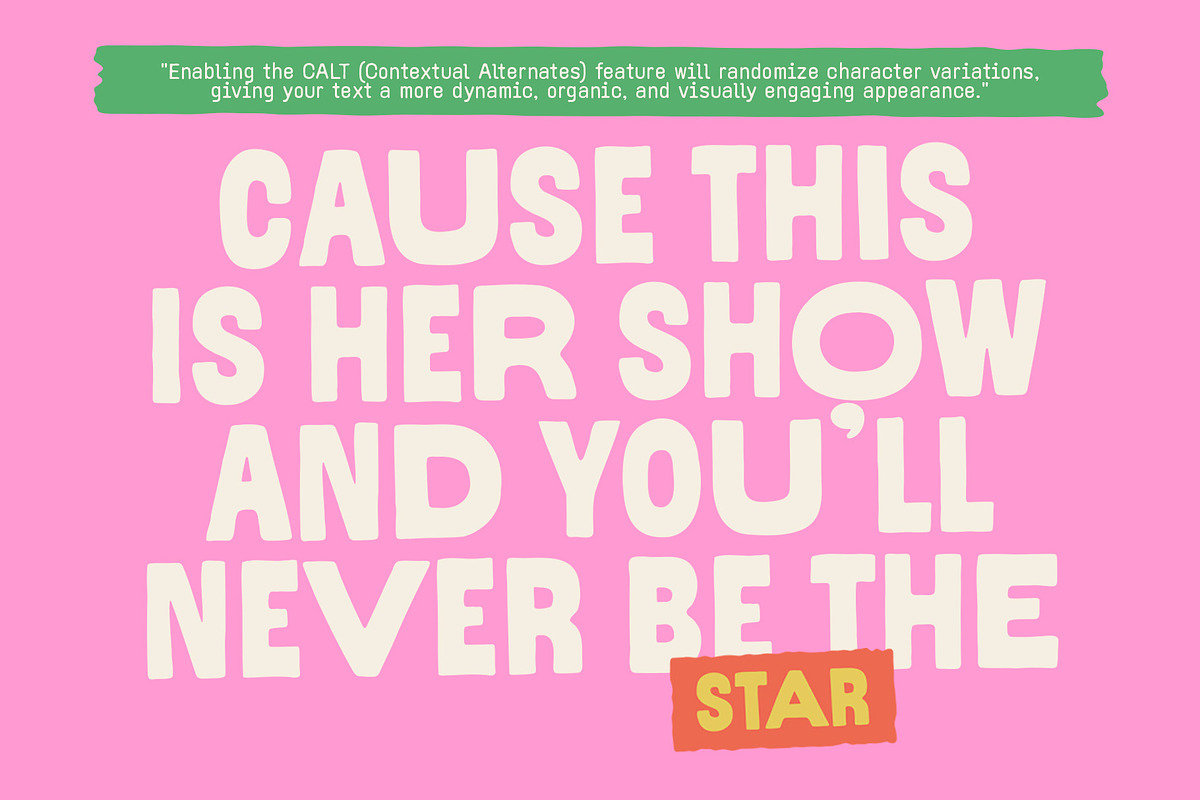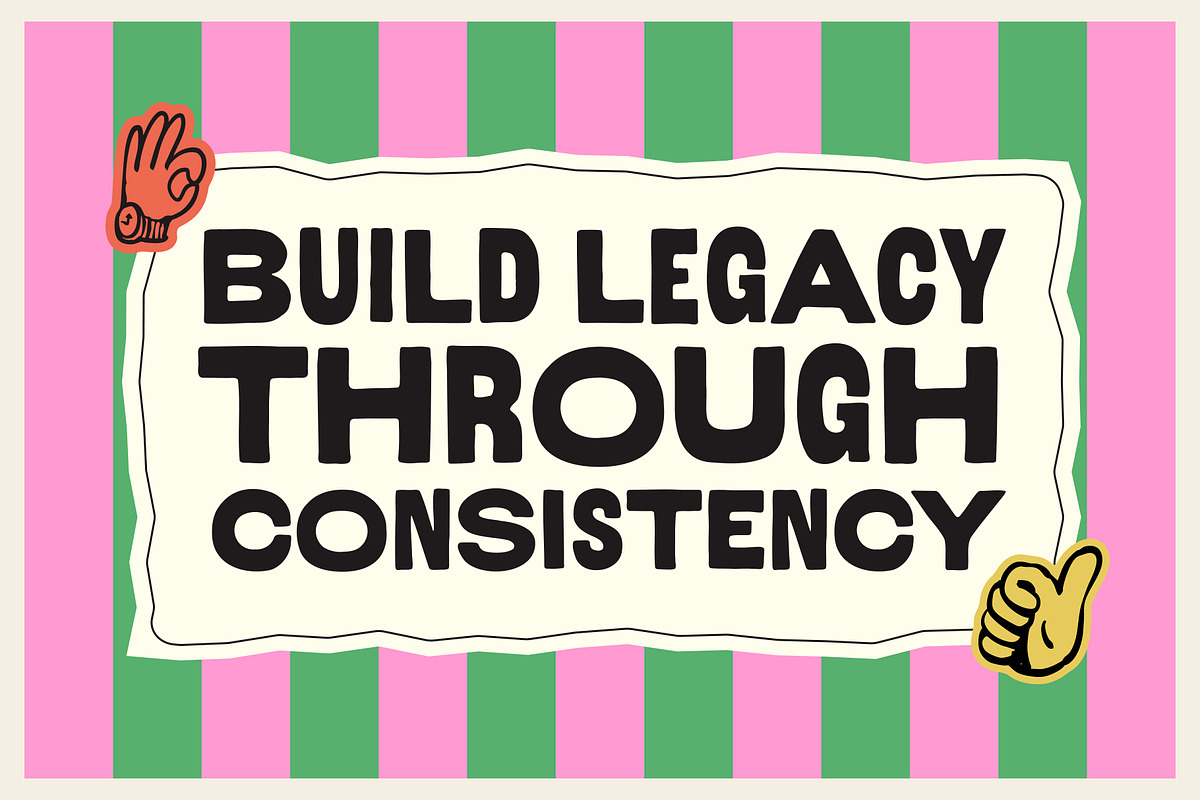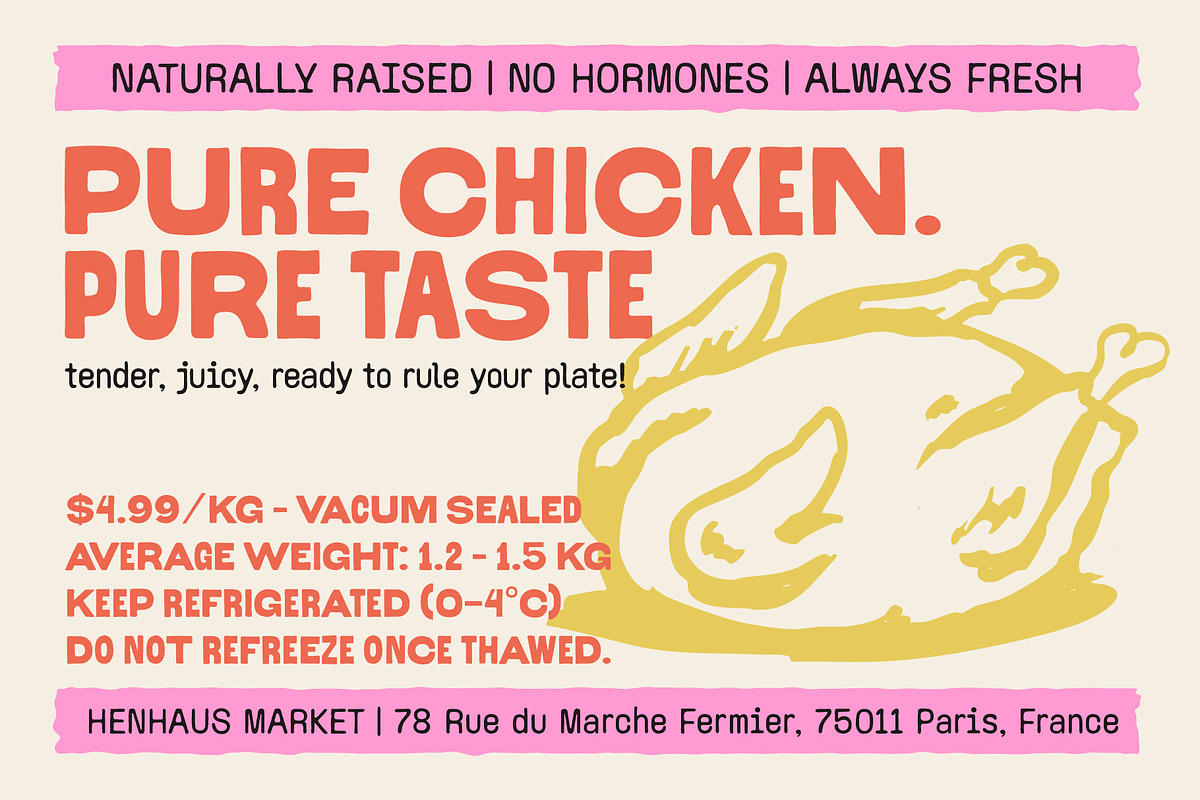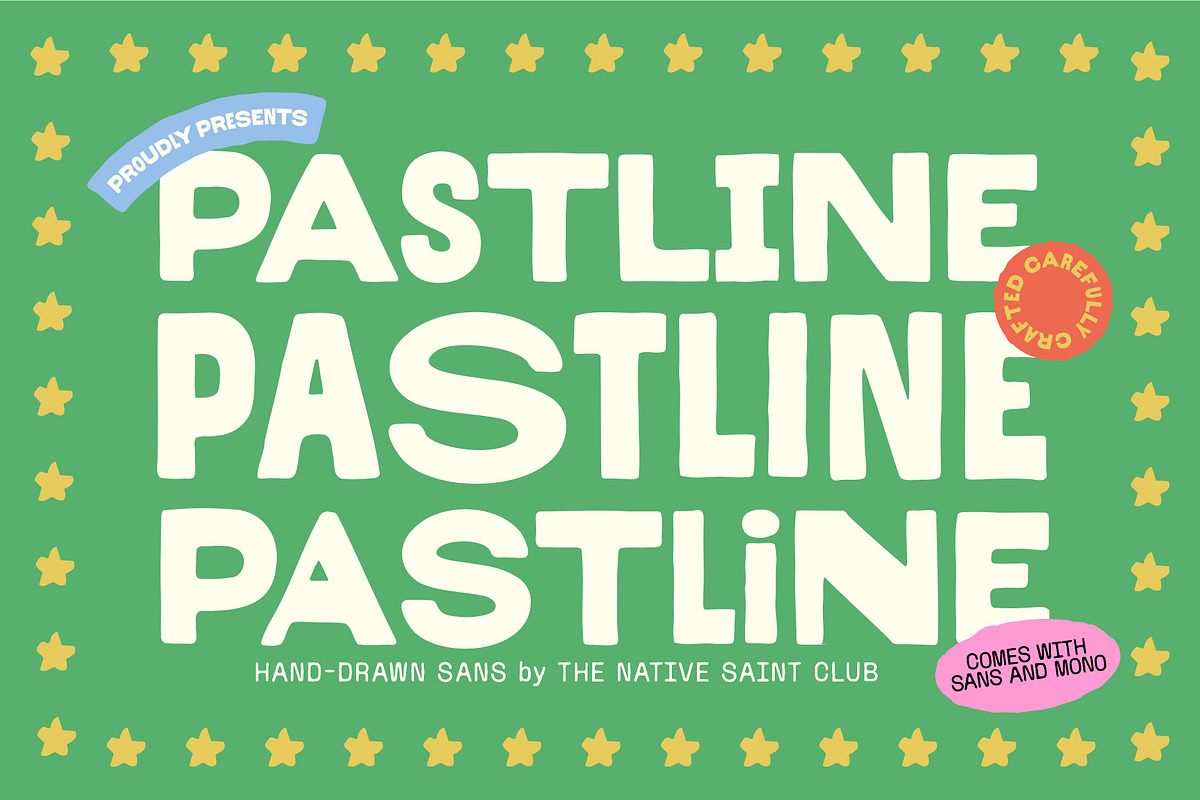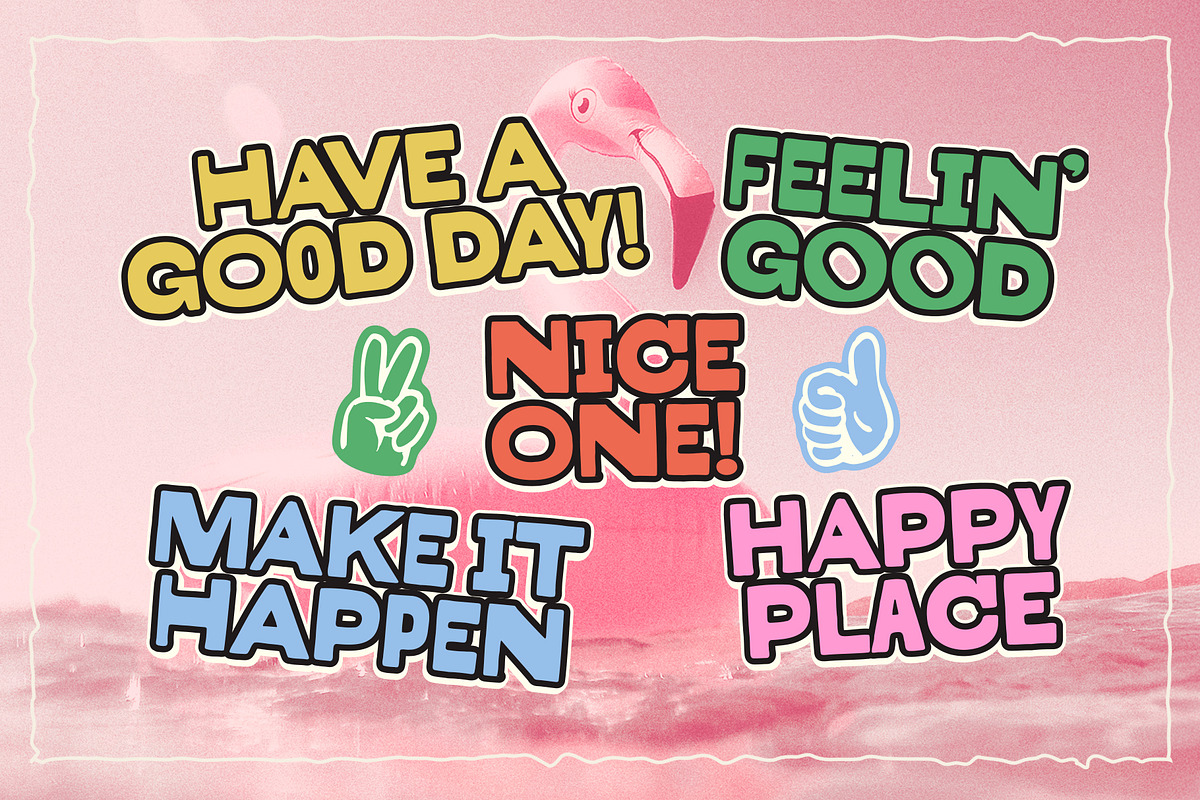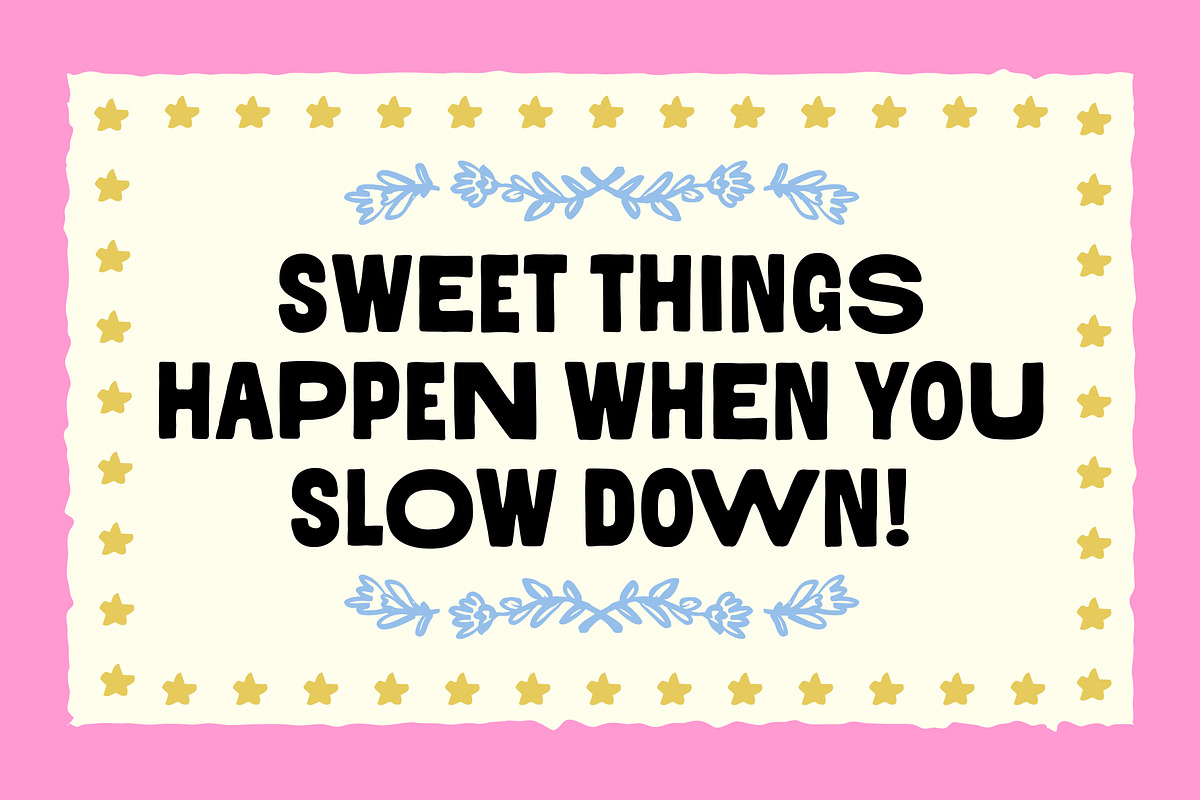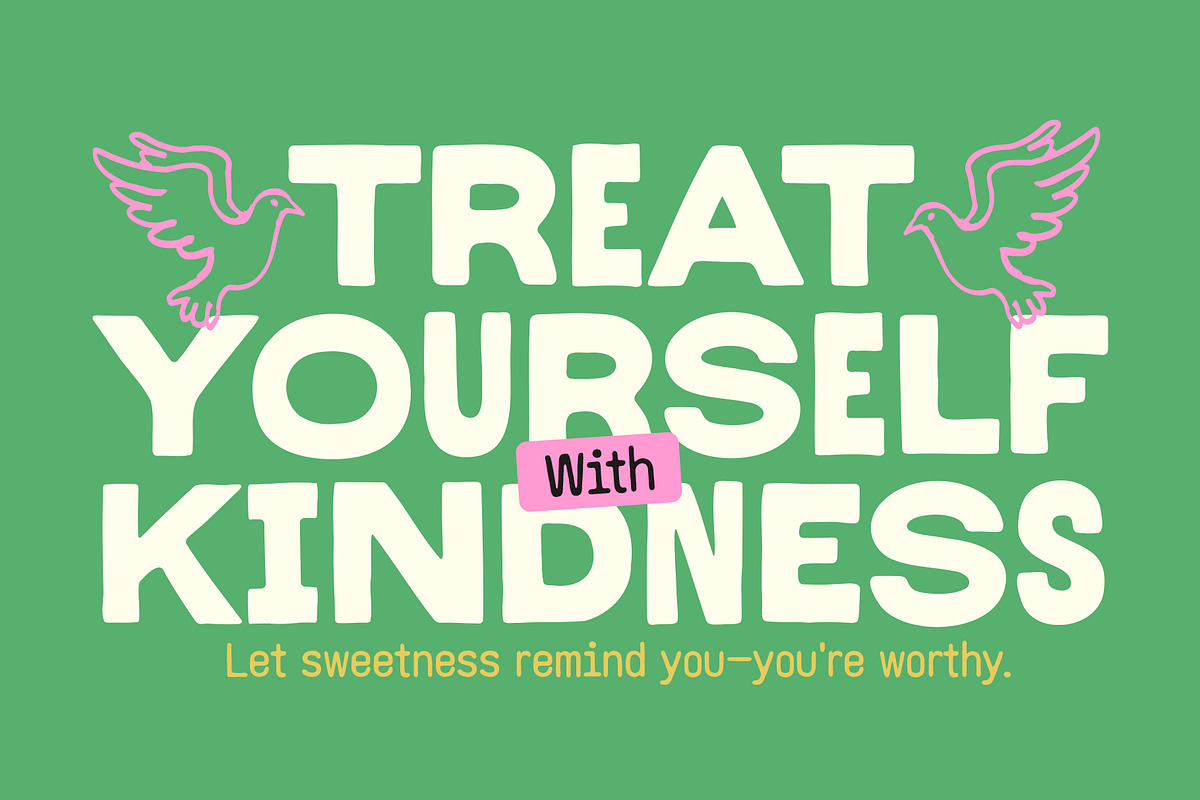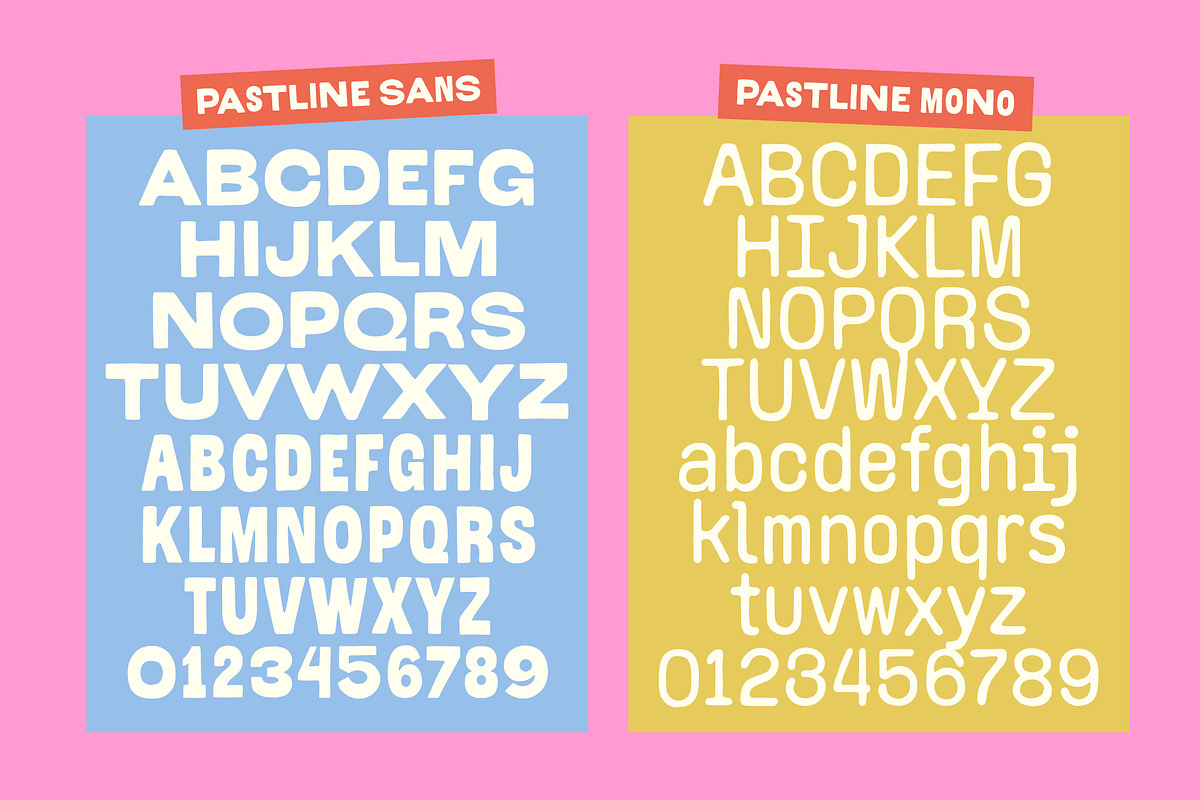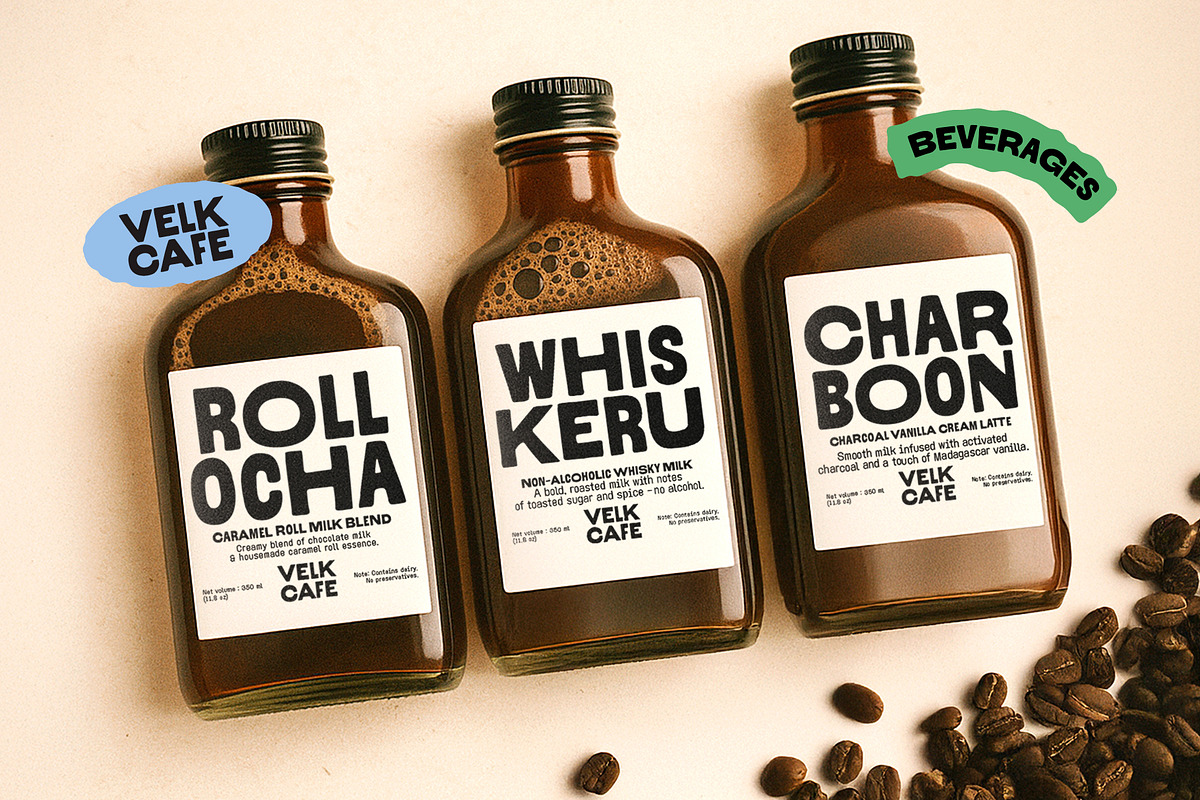
TNSC Pastline - Hand-drawn Sans
TNSC Pastline is a hand-drawn font duo sans serif and mono, made to work together. Perfect for food, coffee, café, and restaurant branding or packaging.
Includes FREE quirky illustrations to add fun vibes, plus support for 50+ languages so your message goes global.